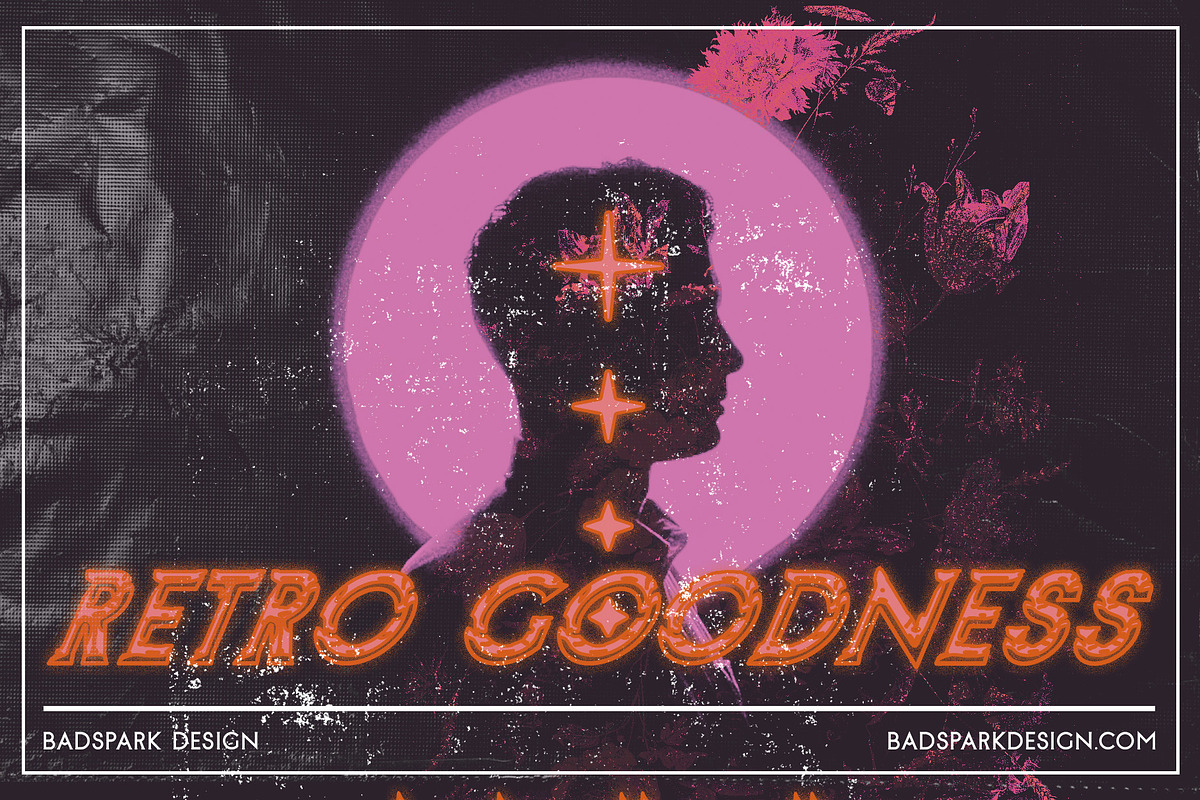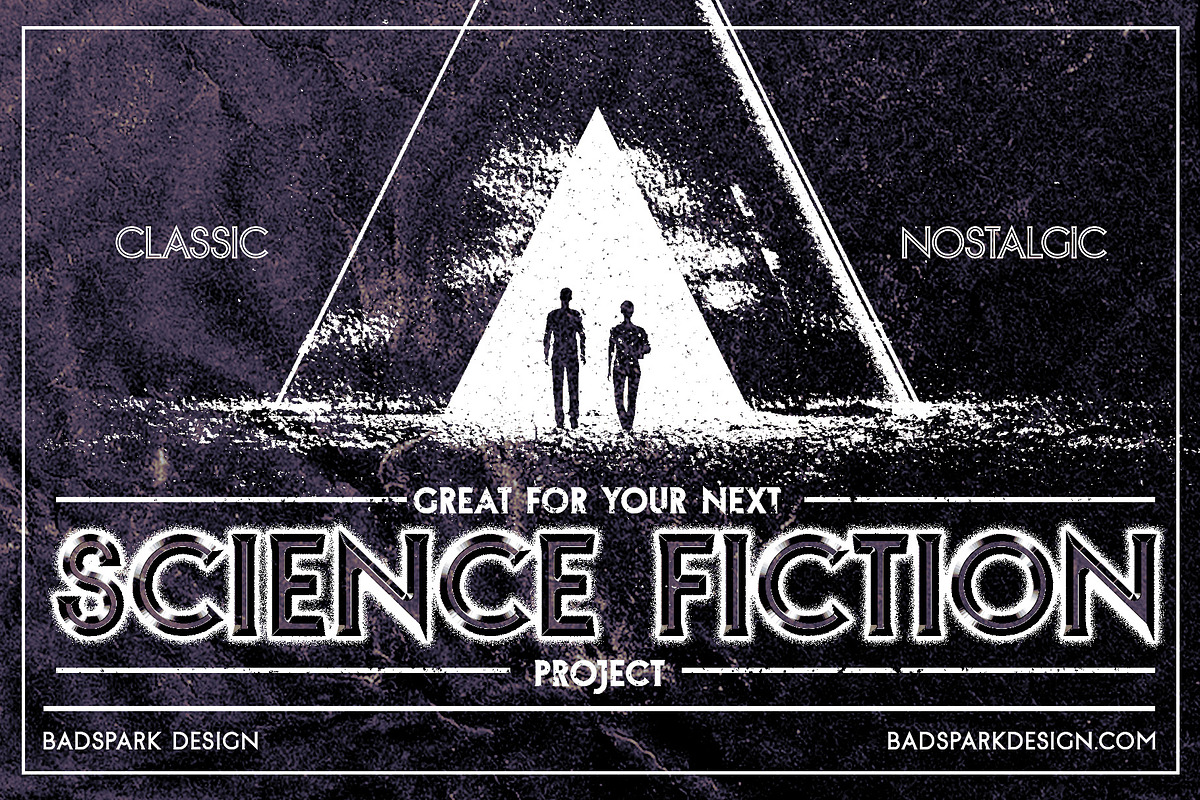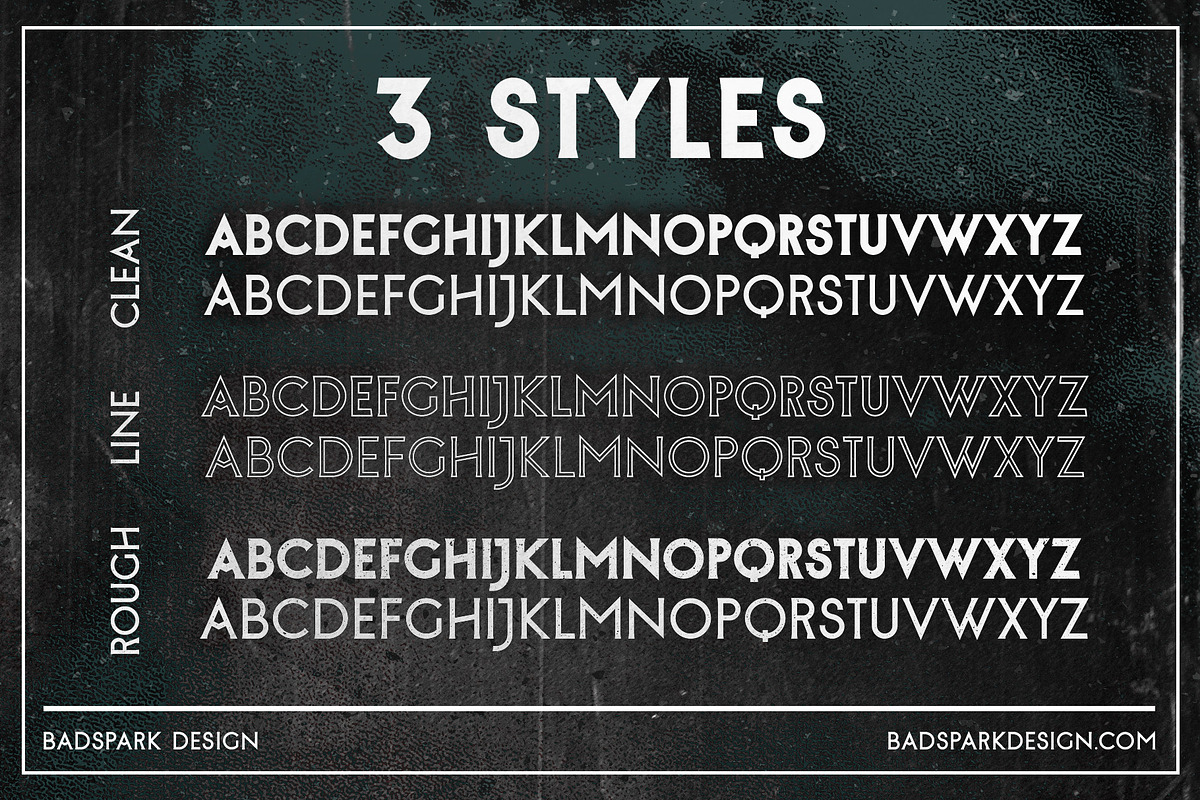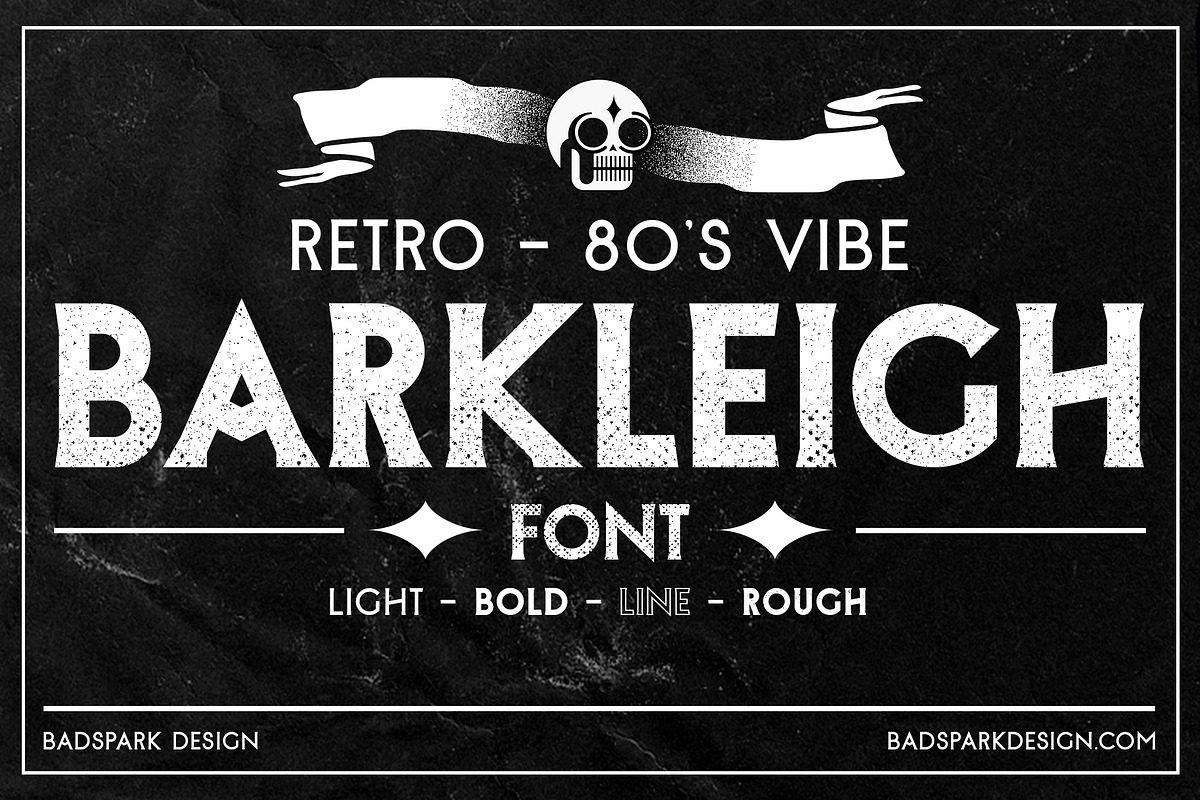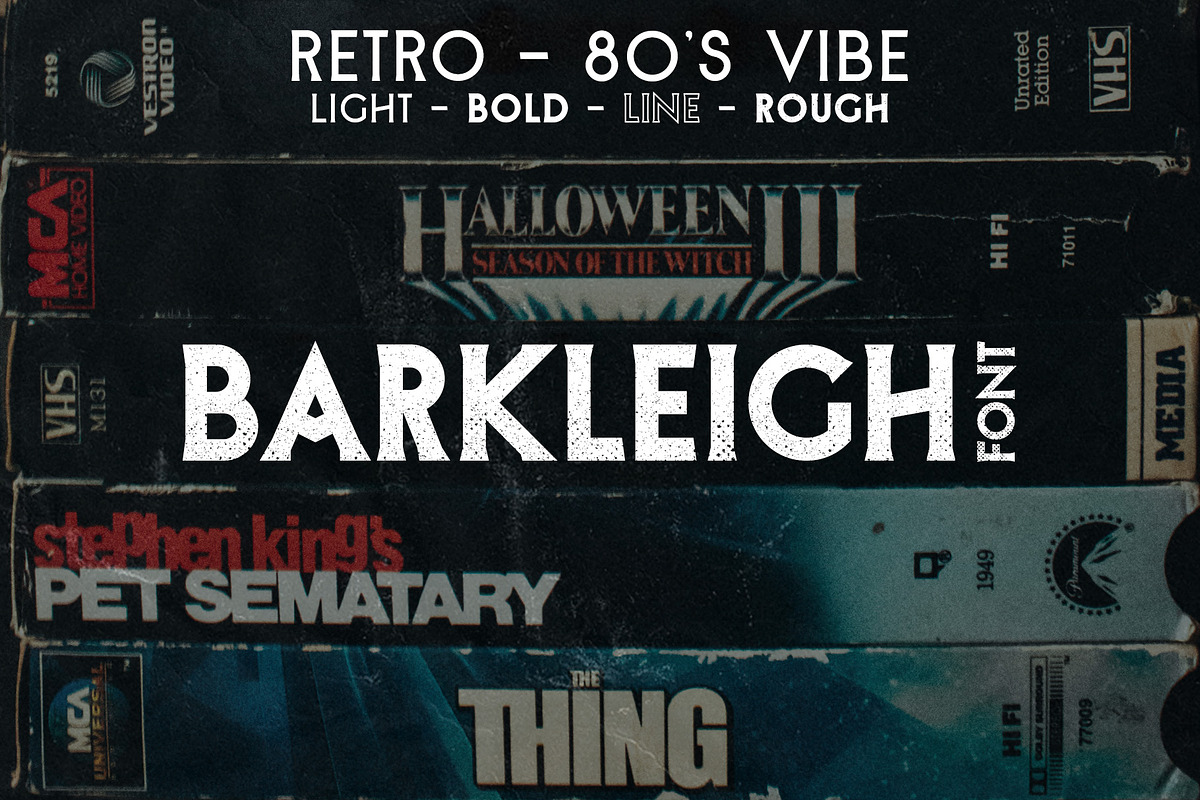
Barkleigh Font | 80s Retro (6 fonts)
Barkleigh Font | 80s Retro (6 fonts) by Badspark is a font selected for branding, posters, packaging, typography.
- Bold
- Bold Inline
- Bold Rough
- Light
- Light Inline
- Light Rough
Barkleigh Font | 80s Retro (6 fonts) by Badspark fits naturally into Branding, posters, packaging, typography.